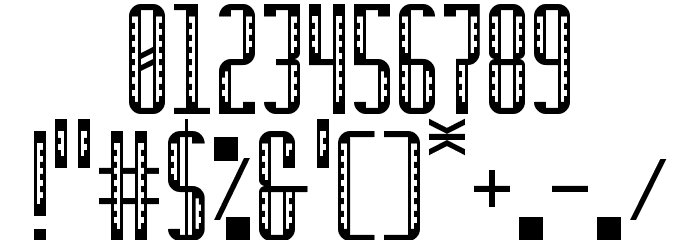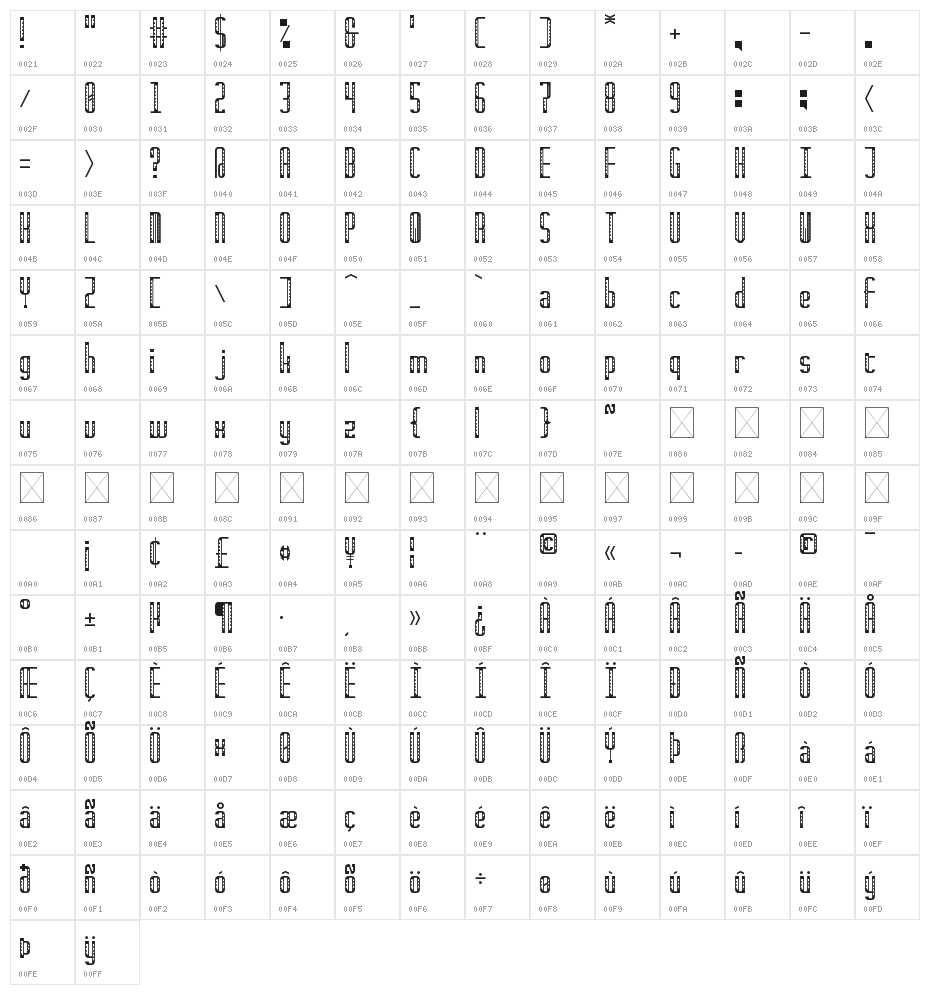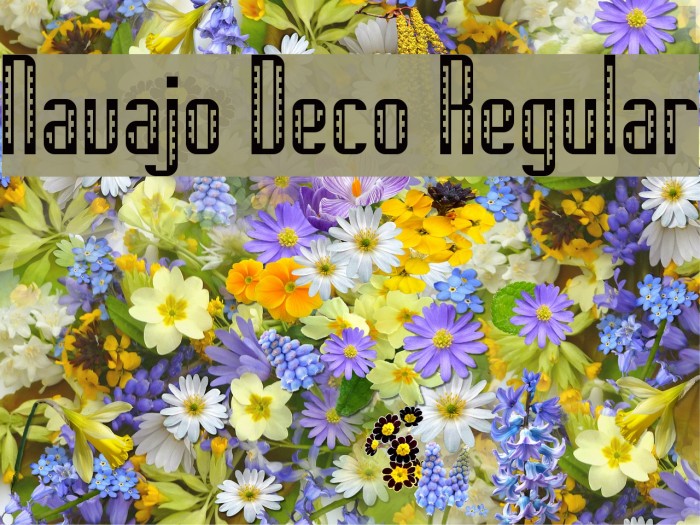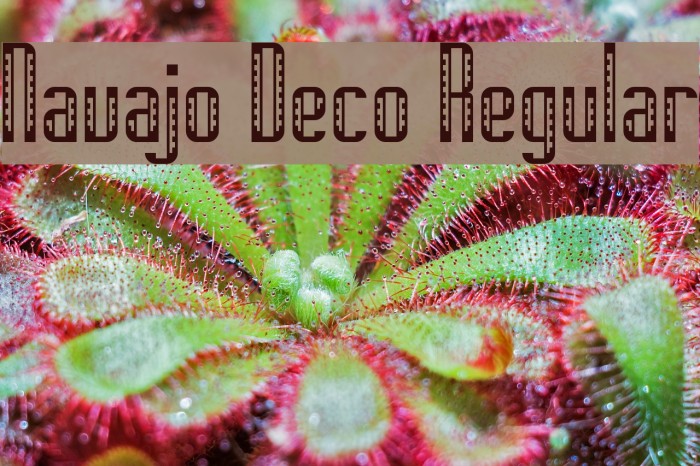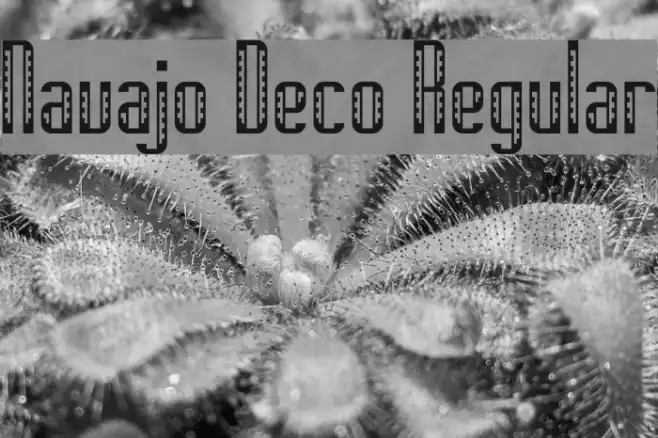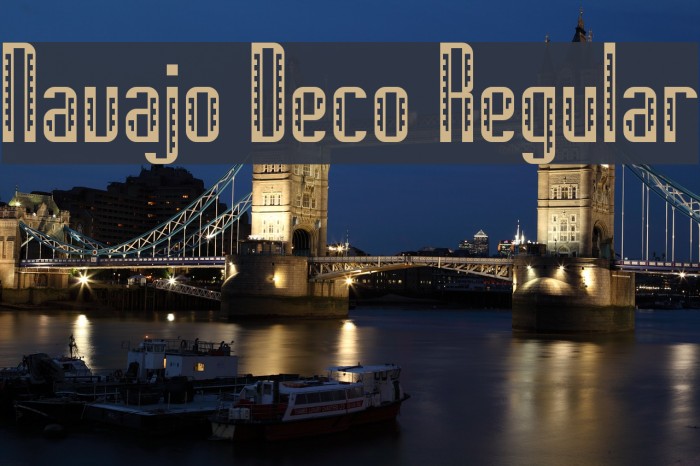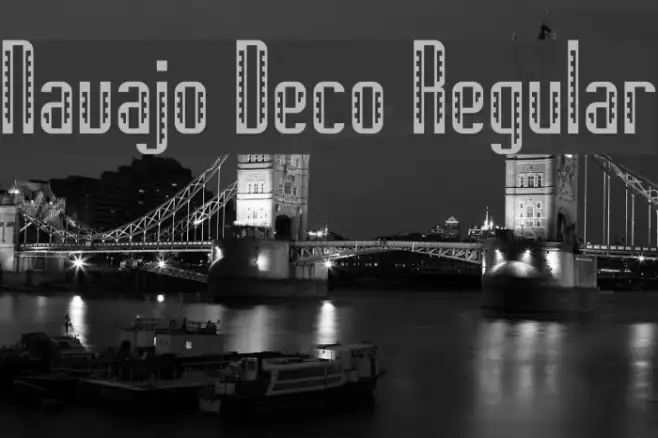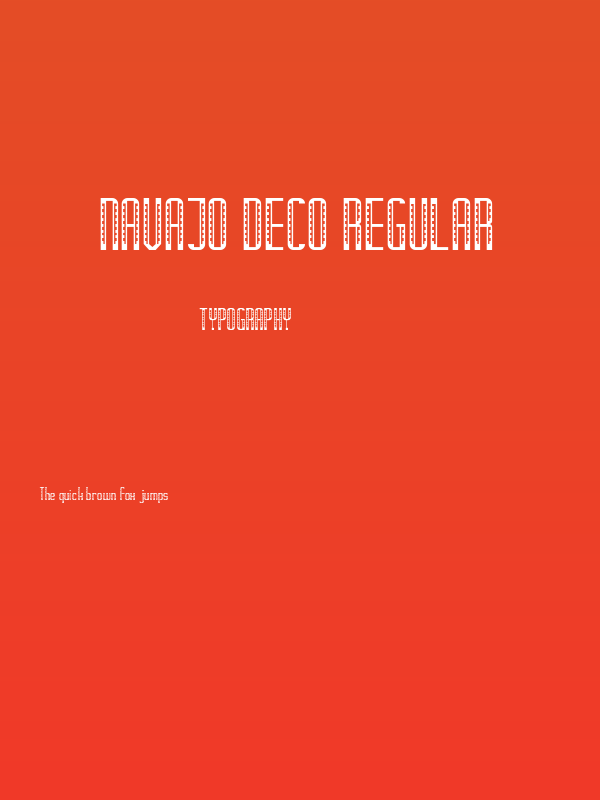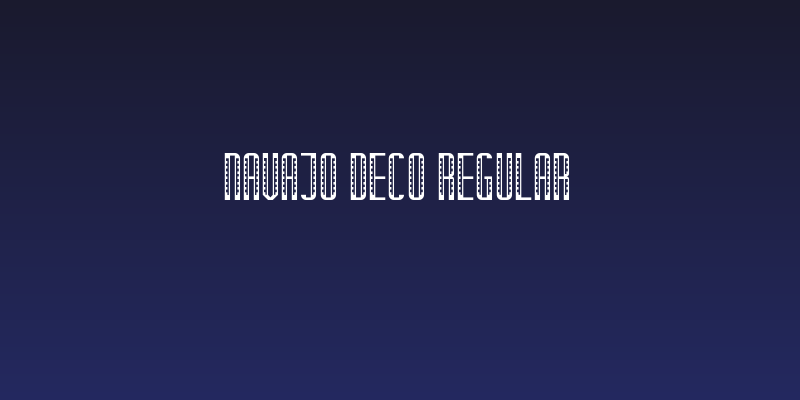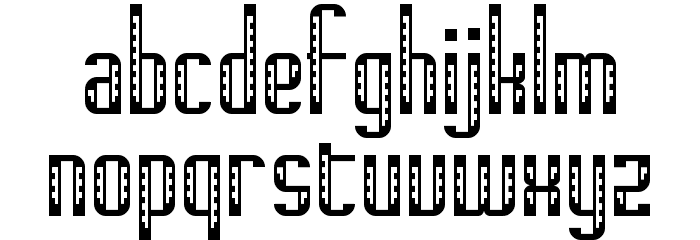
Navajo Deco Regular Font
Navajo Deco Regular Description
This font features a unique blend of geometric and decorative elements, characterized by its bold, linear structure and intricate detailing within each character. The uppercase letters are tall and narrow, with a distinct pattern running through the center, giving it a striking appearance. The lowercase letters maintain a similar style, ensuring consistency across the typeface. Numbers and special characters are designed with the same attention to detail, making them stand out. This font's design is reminiscent of art deco influences, combining modern aesthetics with a vintage touch.
| Proposed Projects | Ideal for use in branding, poster design, and any project requiring a vintage yet modern aesthetic. |